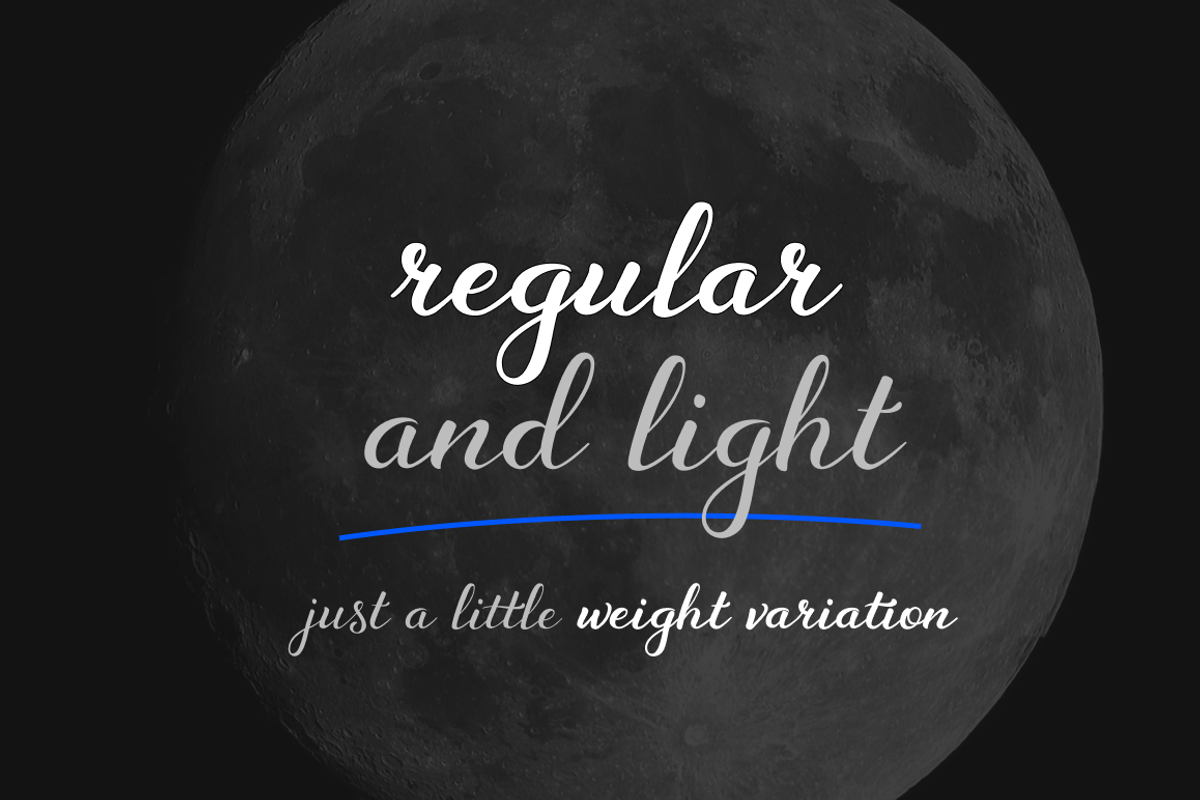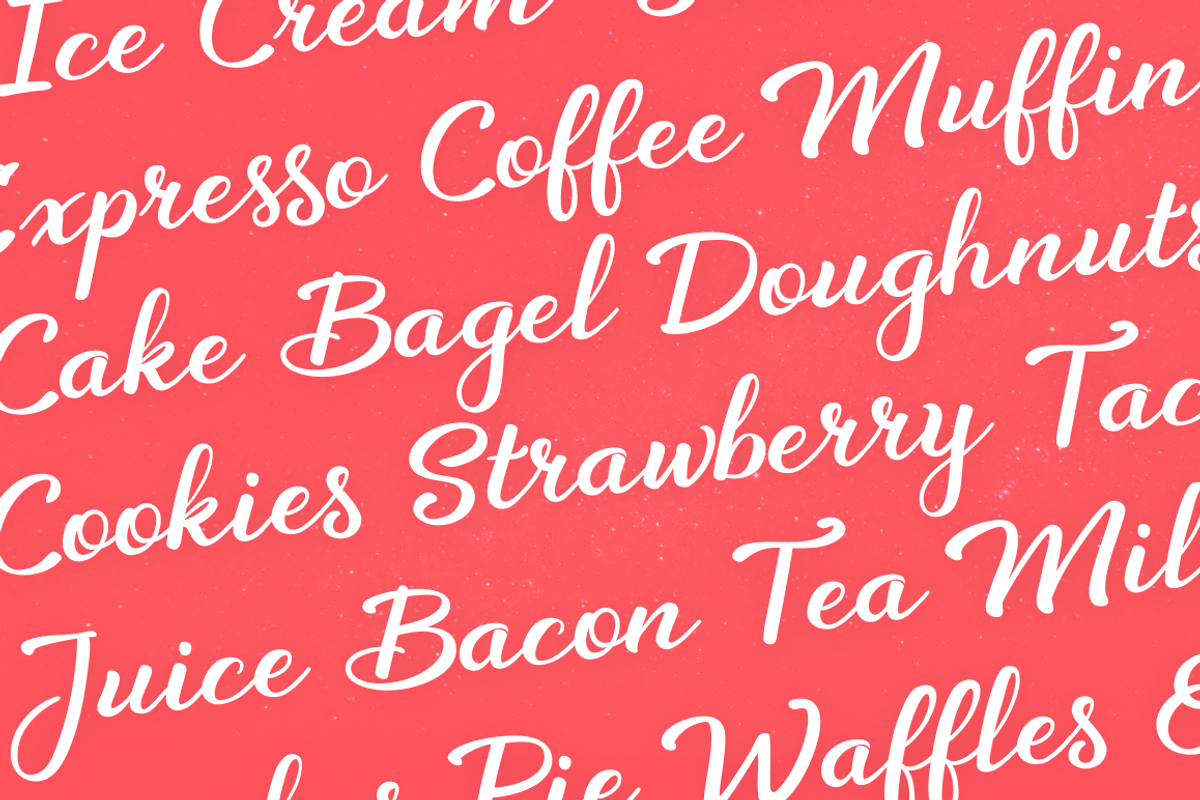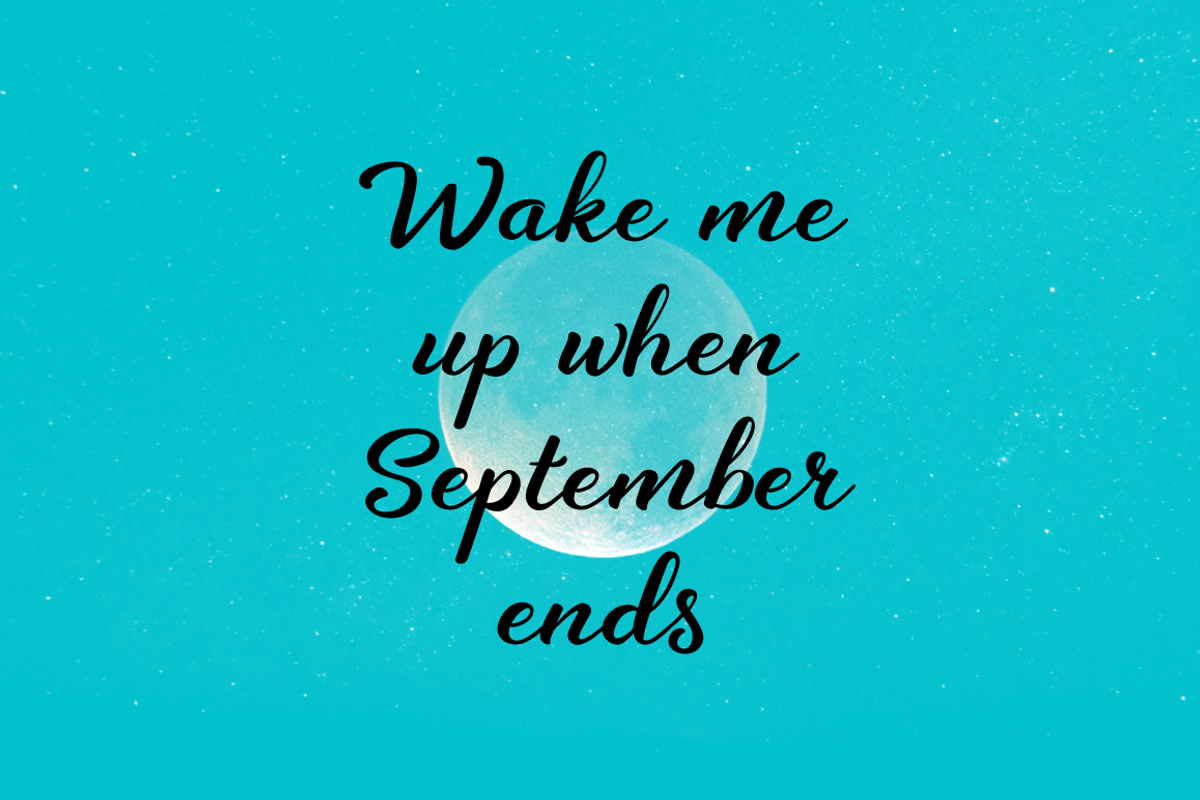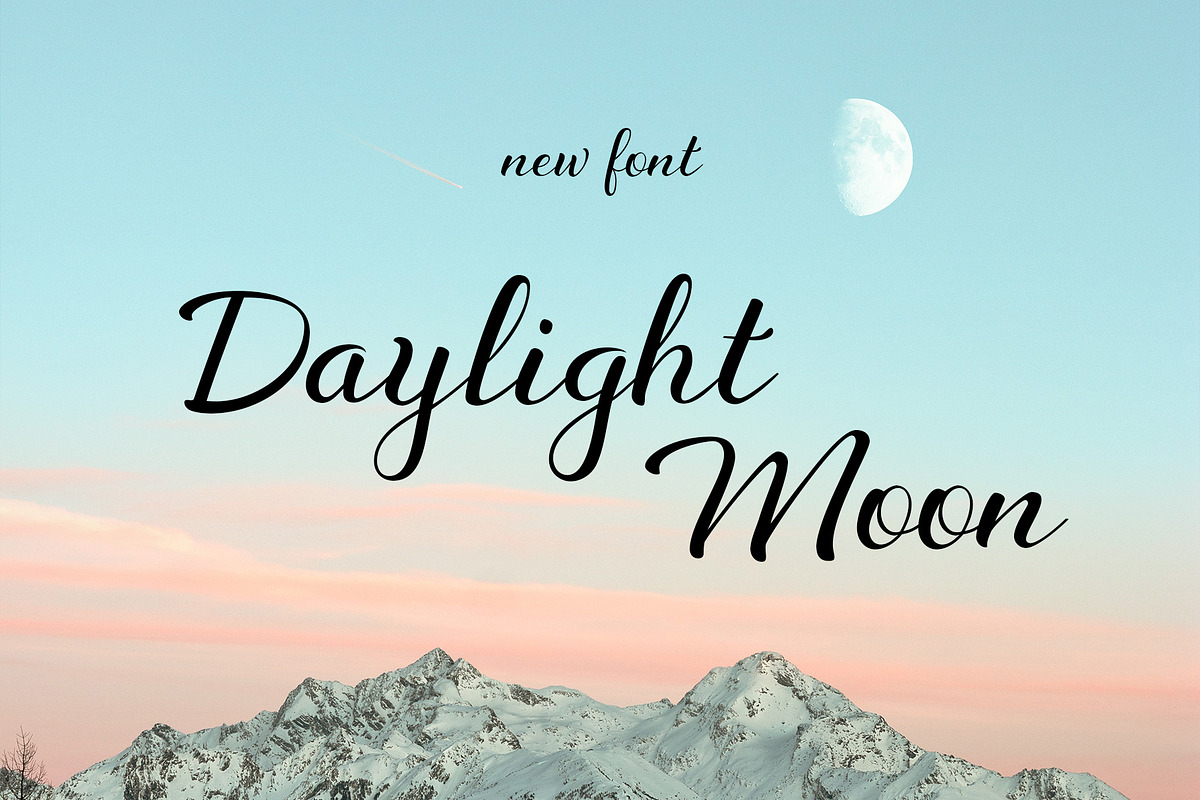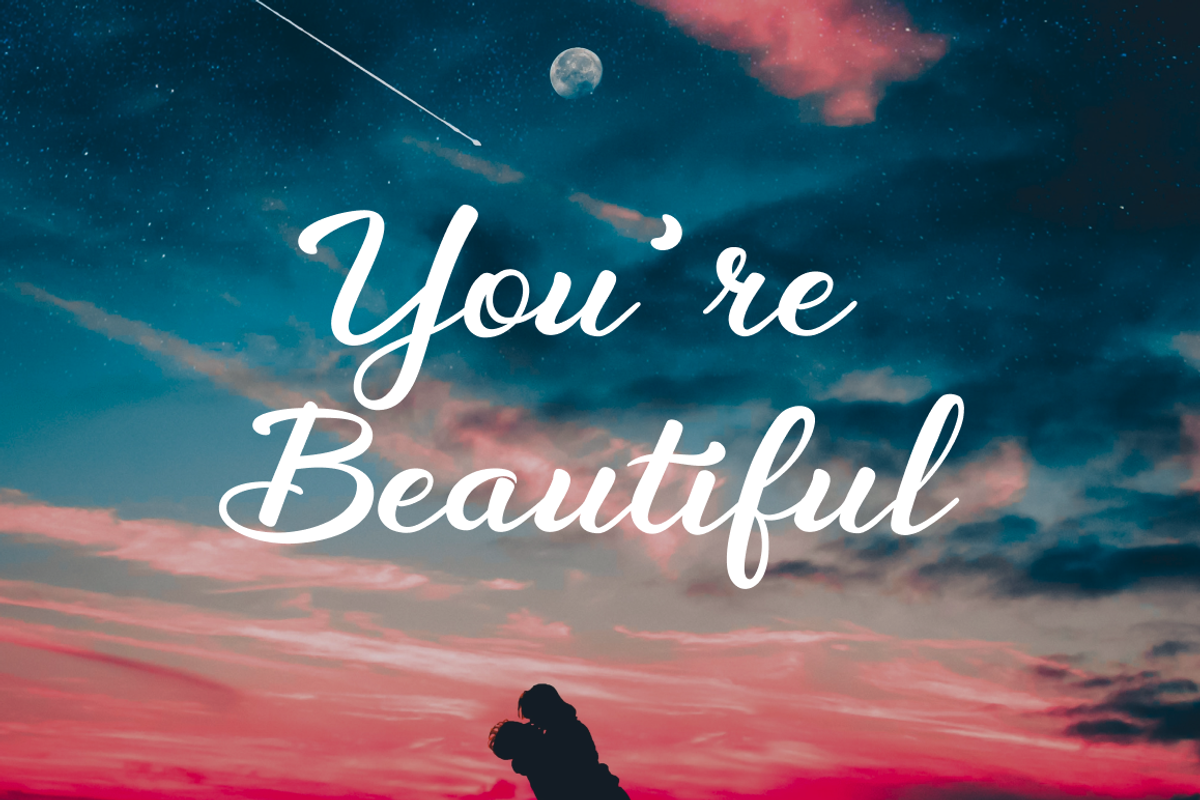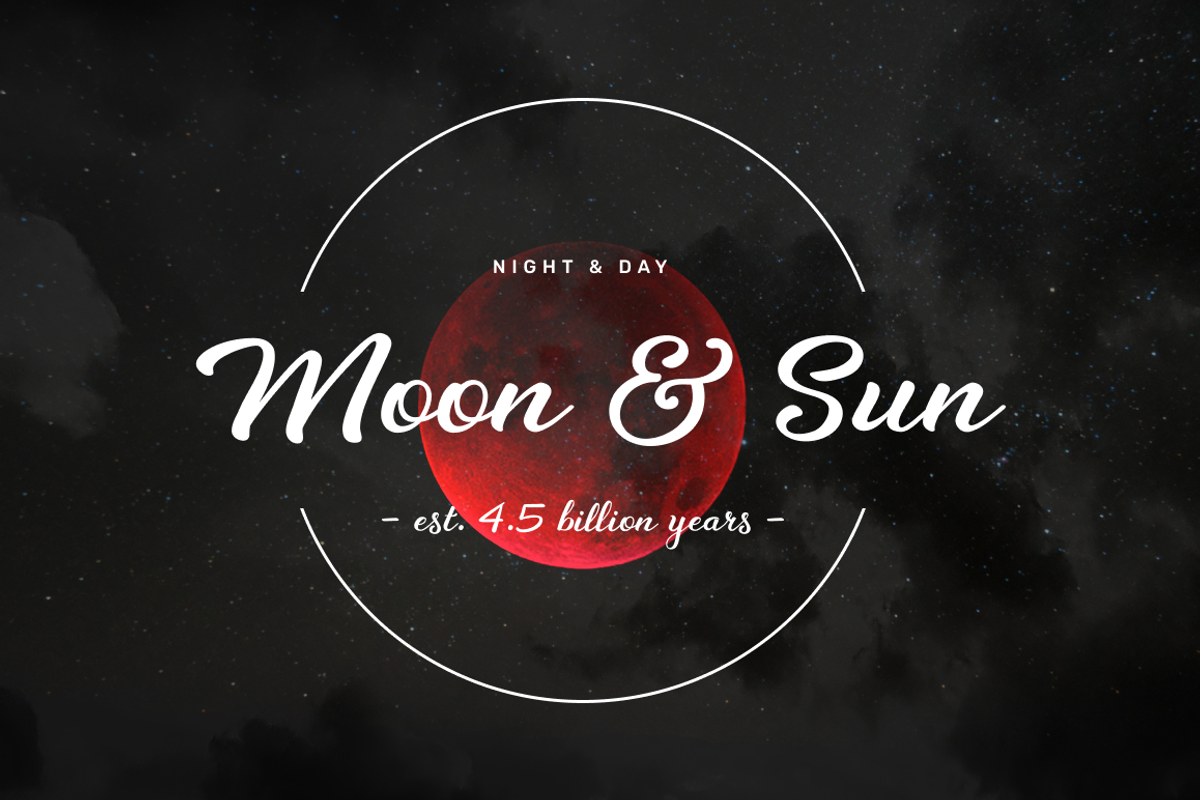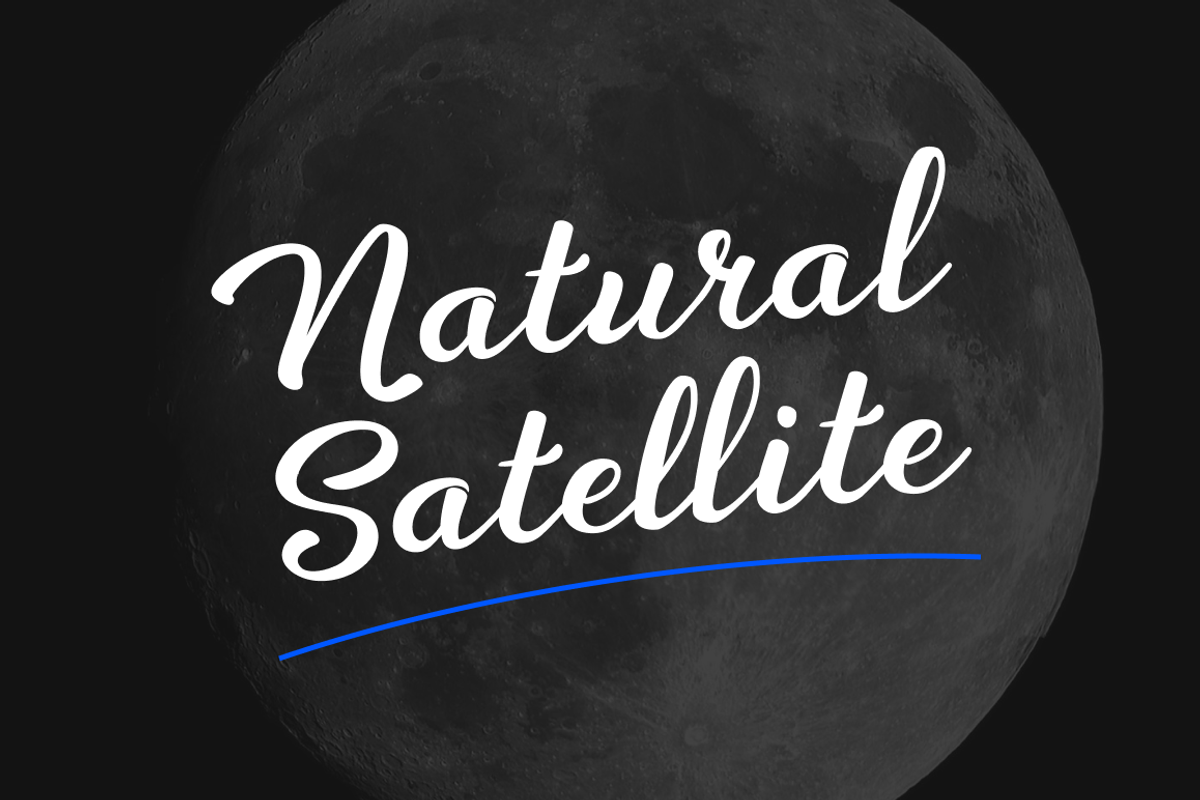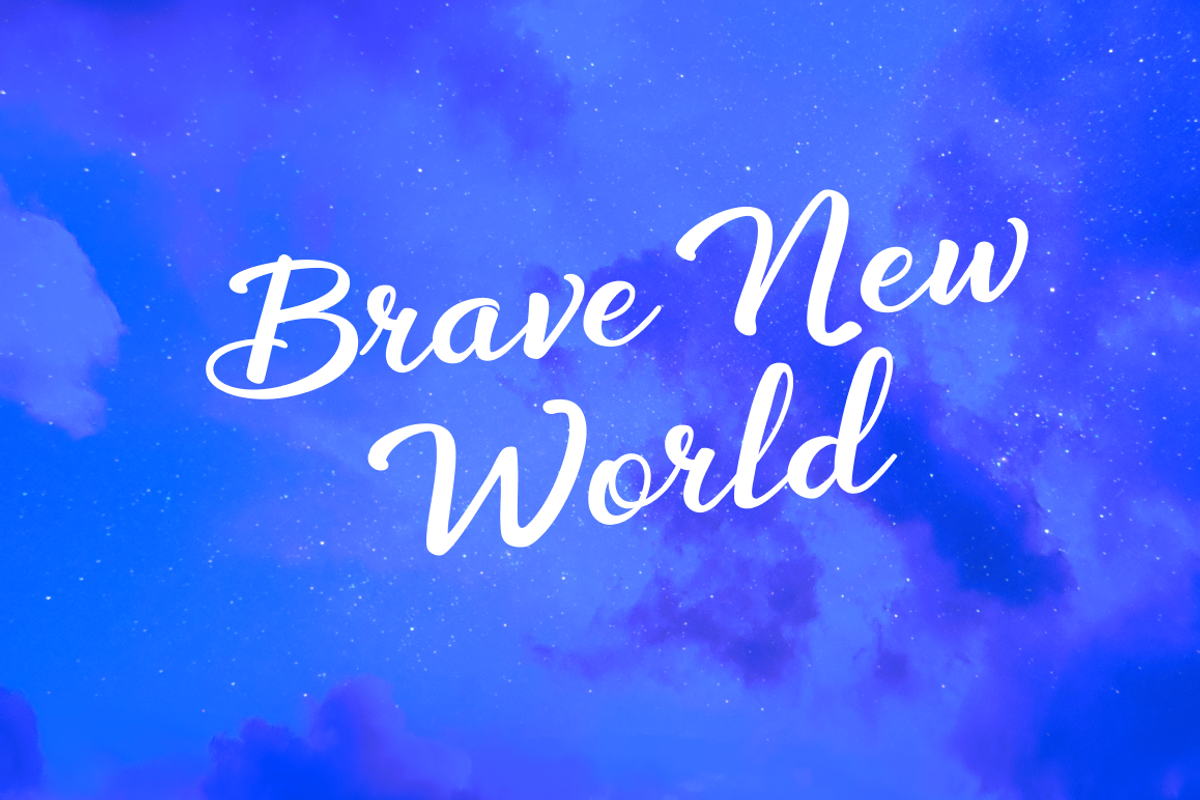
Daylight Moon - Fresh Script Font
Daylight Moon - The script font of your daydreams.
A fresh and smooth script font, the right one for your projects. Create stunning layouts for wedding invitations, birthday cards, logos, social media posts and more.
The font was totally handwritten to capture the natural rhythm of a manual script, while keeping the overall structure clean and balanced.
2 WEIGHTS - regular and light.
Multi-language Support
Works very well on small font sizes too